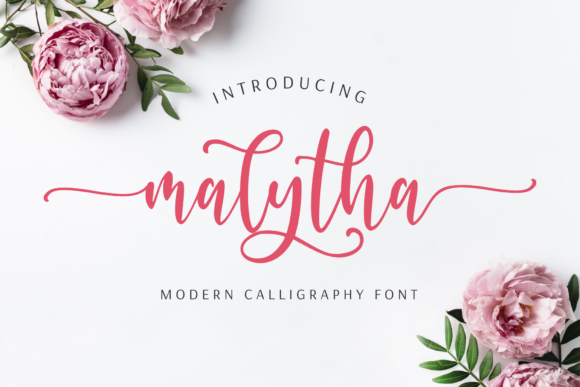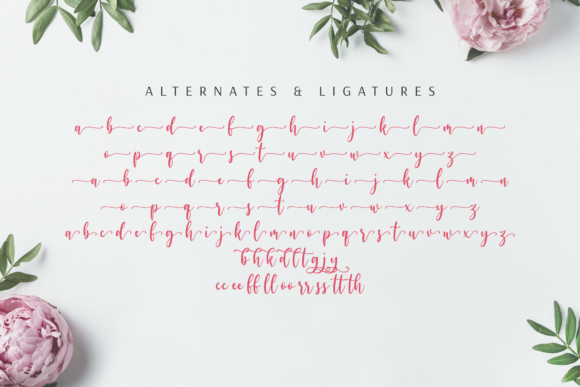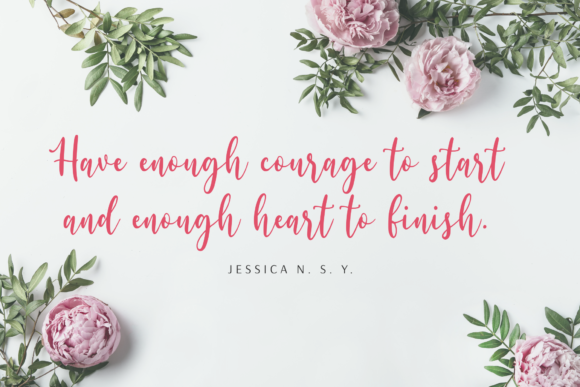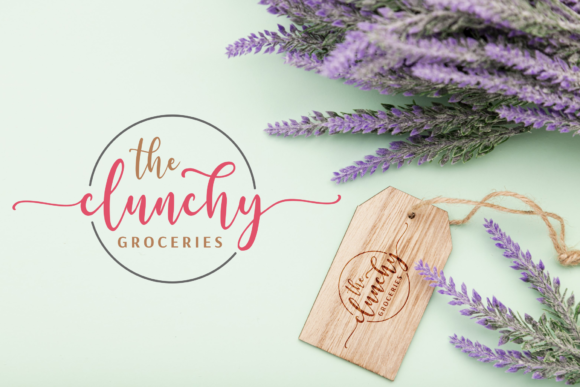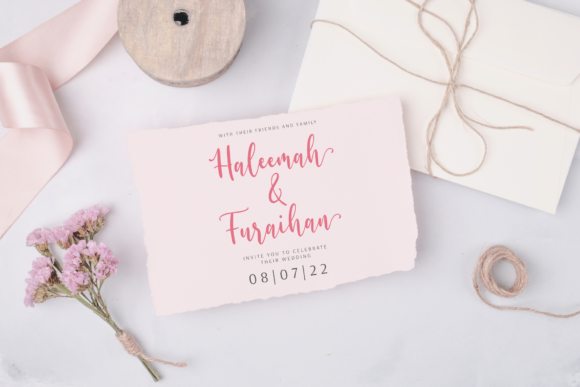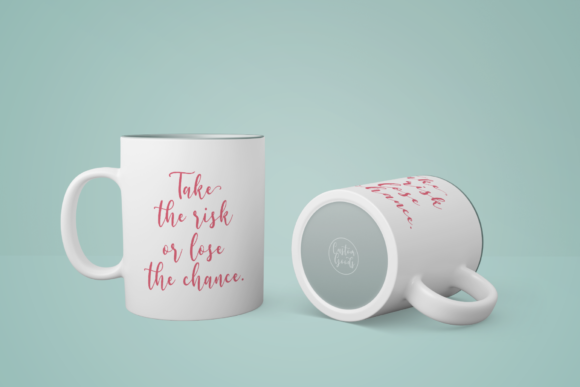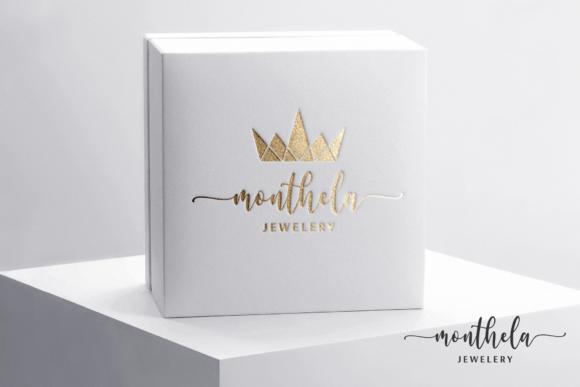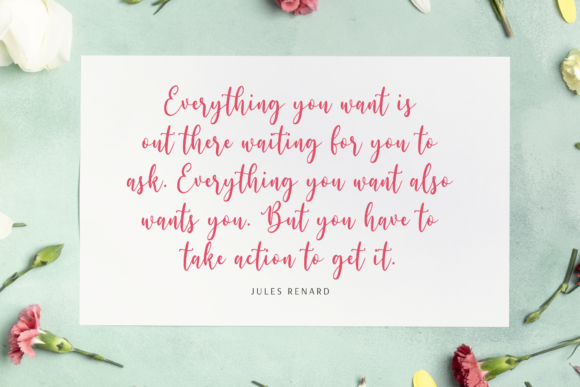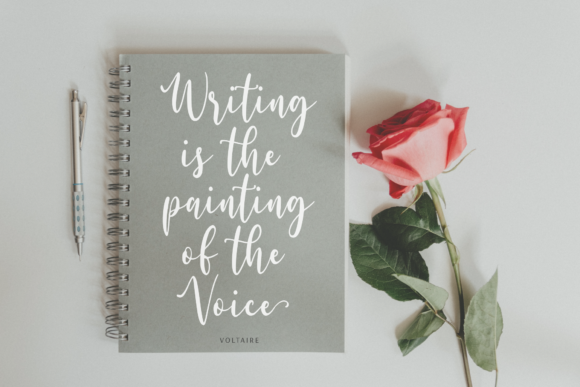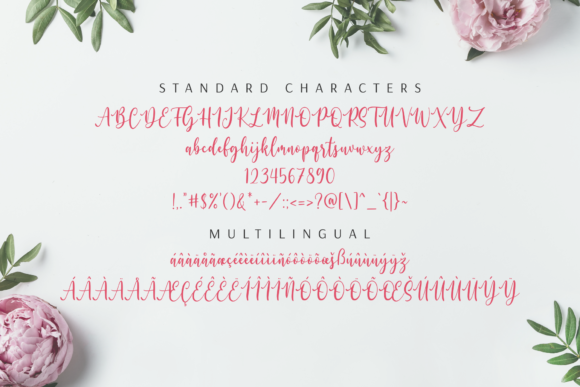
Malytha Font
About Malytha Font
Malytha is an enchanting calligraphy font, carefully created to produce a relaxed and delicate style. This font is PUA encoded which means you can access all of the glyphs and swashes with ease! It features a varying baseline, smooth lines, gorgeous glyphs and stunning alternates.
Malytha looks gorgeous on a variety of projects such as logos & branding, invitation, stationery, wedding designs, social media posts, advertisements and so much more. Let your imagination be the limit!